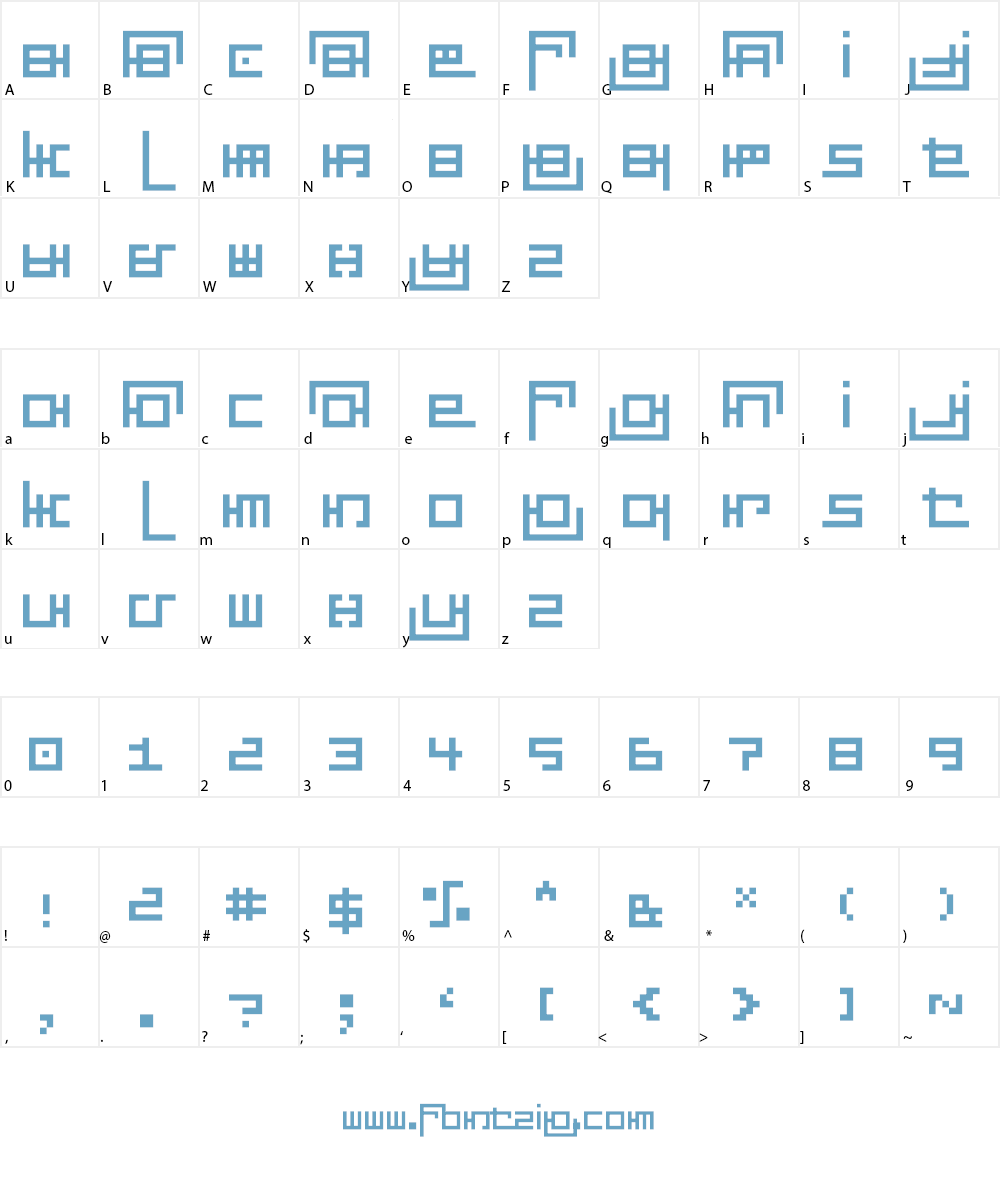
Original size: 6.75pt (use multiples of this value for pixel perfection)
A fantasy pixel font with a geometric script-like appearance. Supports several languages!
This is effectively two designs in one. Use UPPER CASE for fancy glyphs and lower case for plain glyphs.